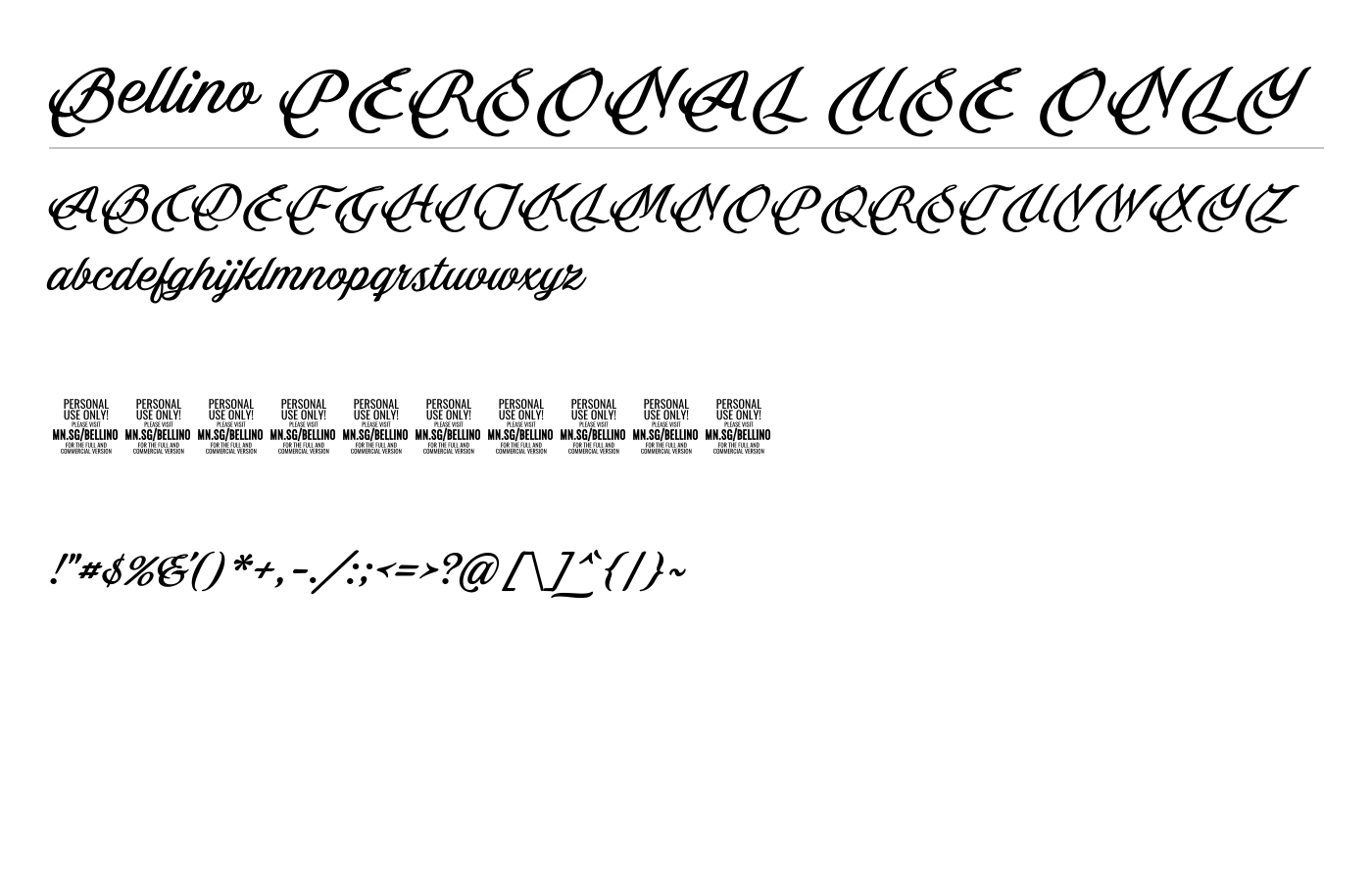
Bellino is an elegant script font with a flowing, calligraphic style that exudes sophistication and charm. Its smooth, medium-weight strokes and graceful curves make it perfect for invitations, branding, and decorative headlines where a refined and personal touch is desired. This font shines in settings that aim to convey luxury, creativity, and classic beauty.
Bellino PERSONAL USE ONLY Font
About Bellino PERSONAL USE ONLY Font